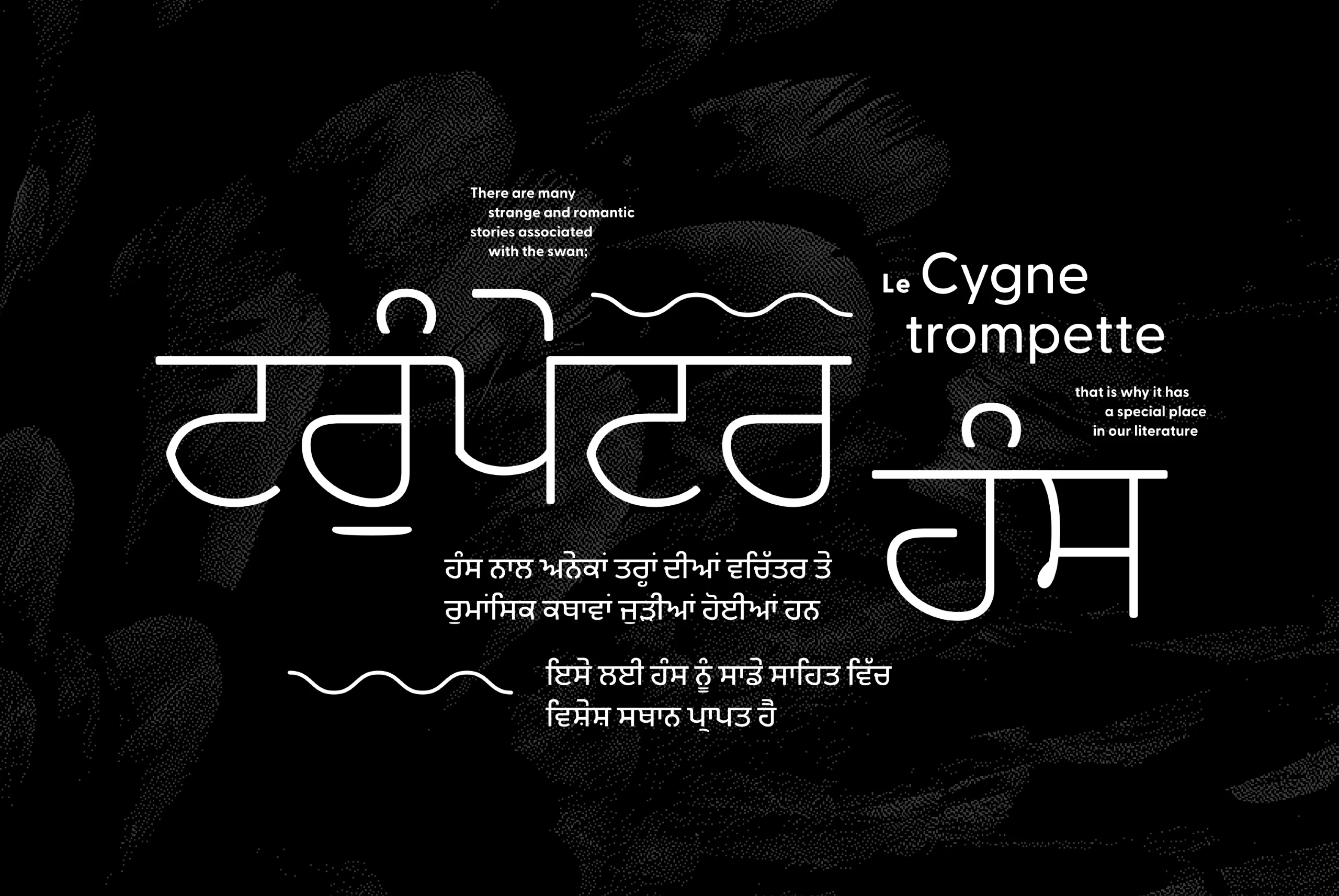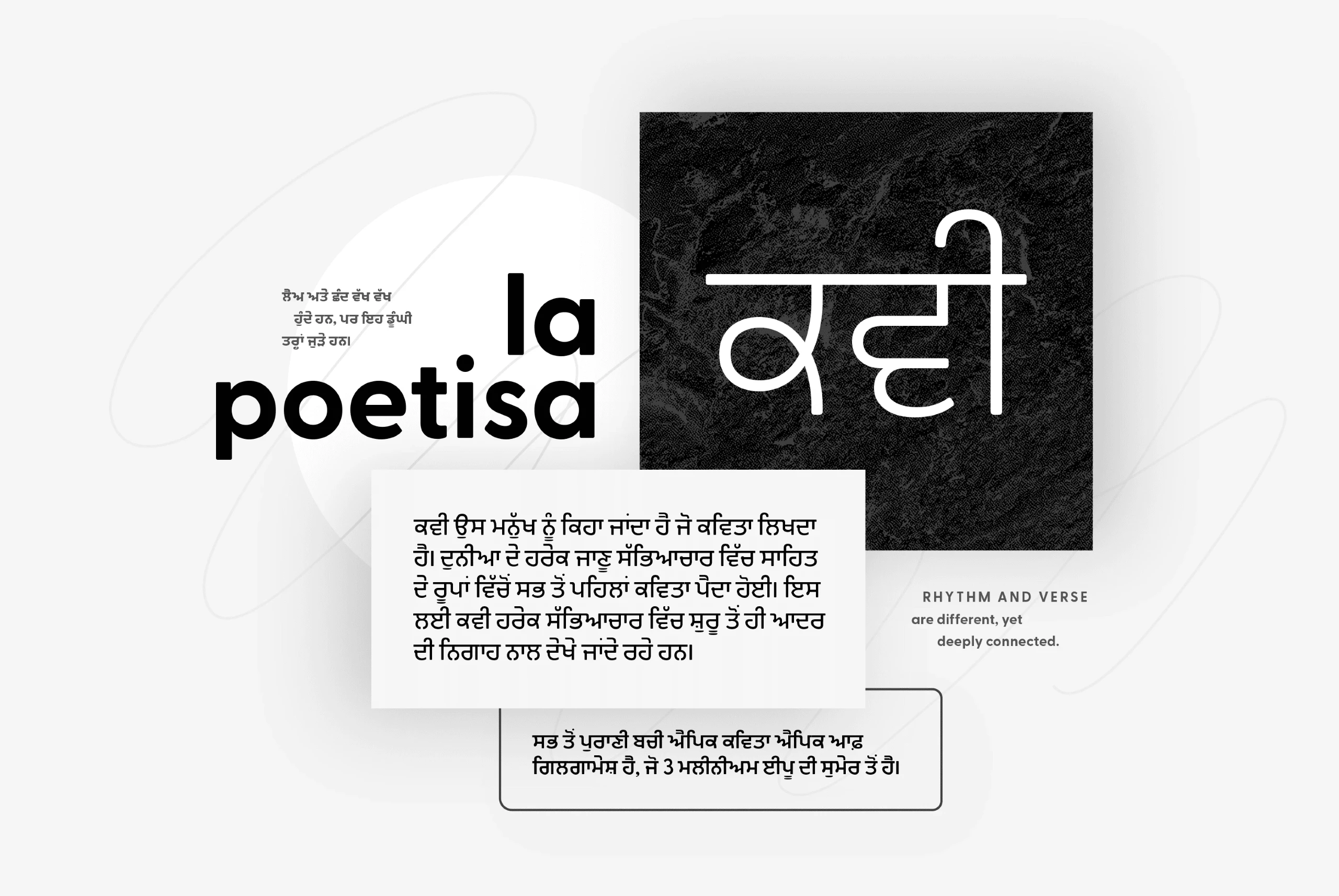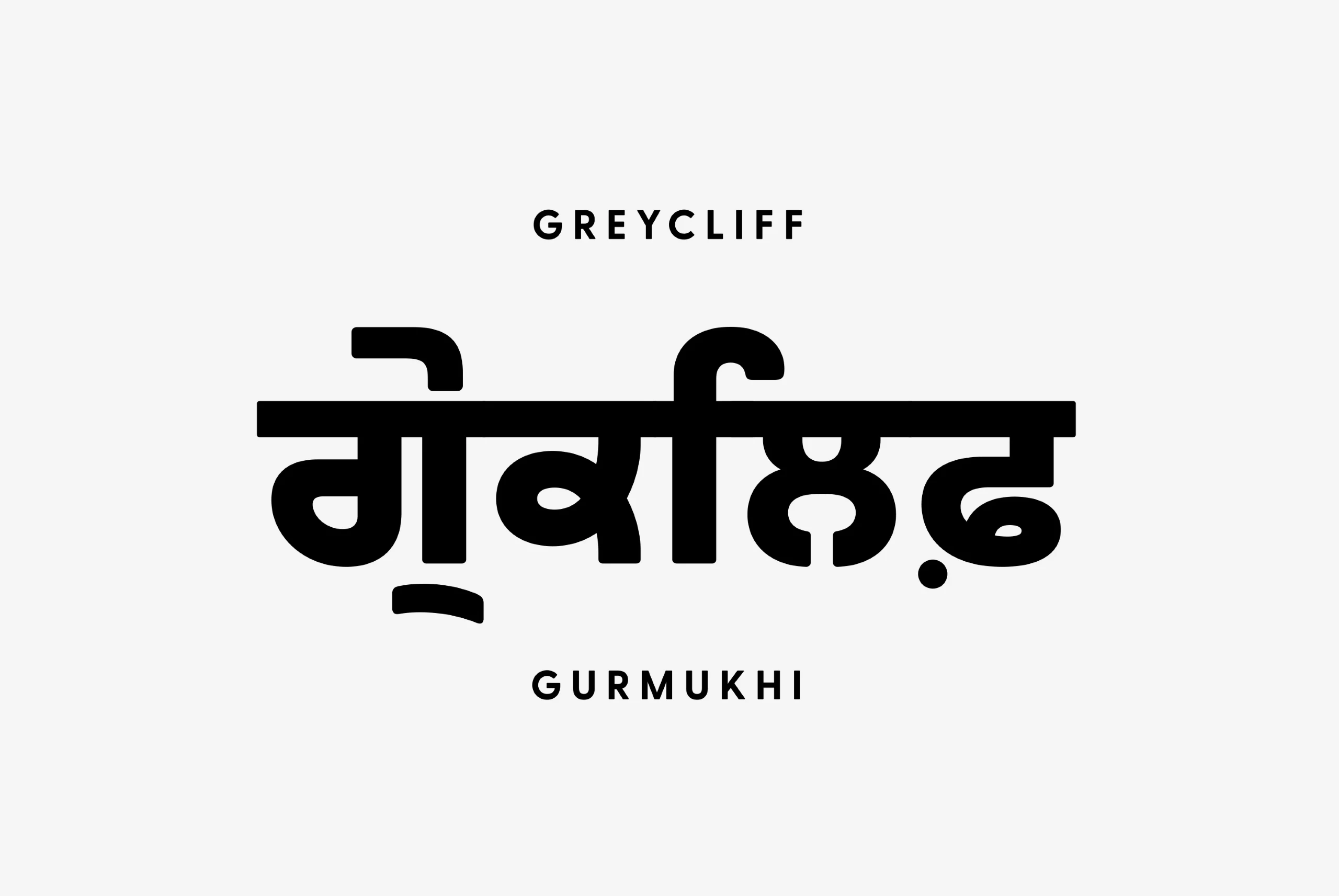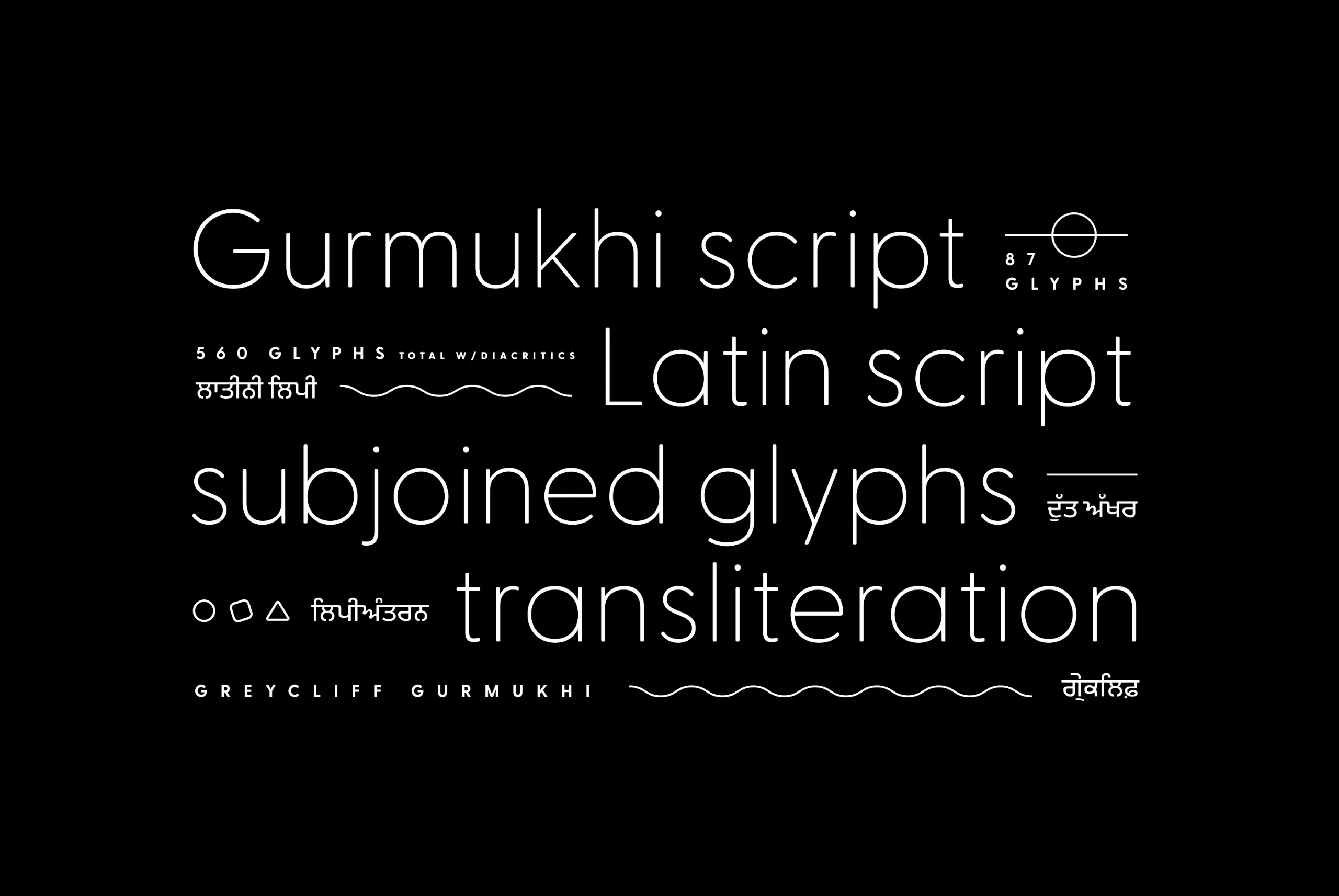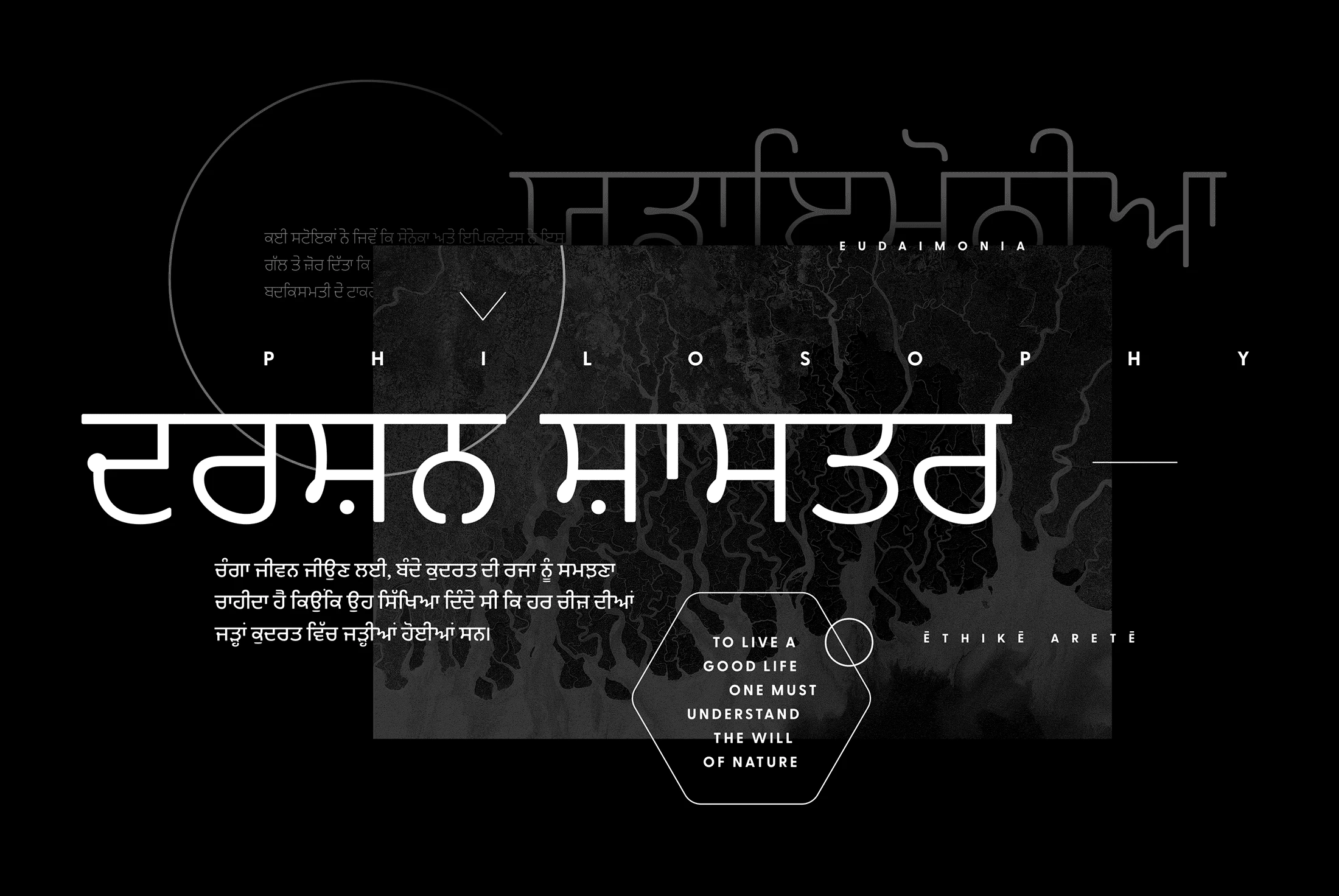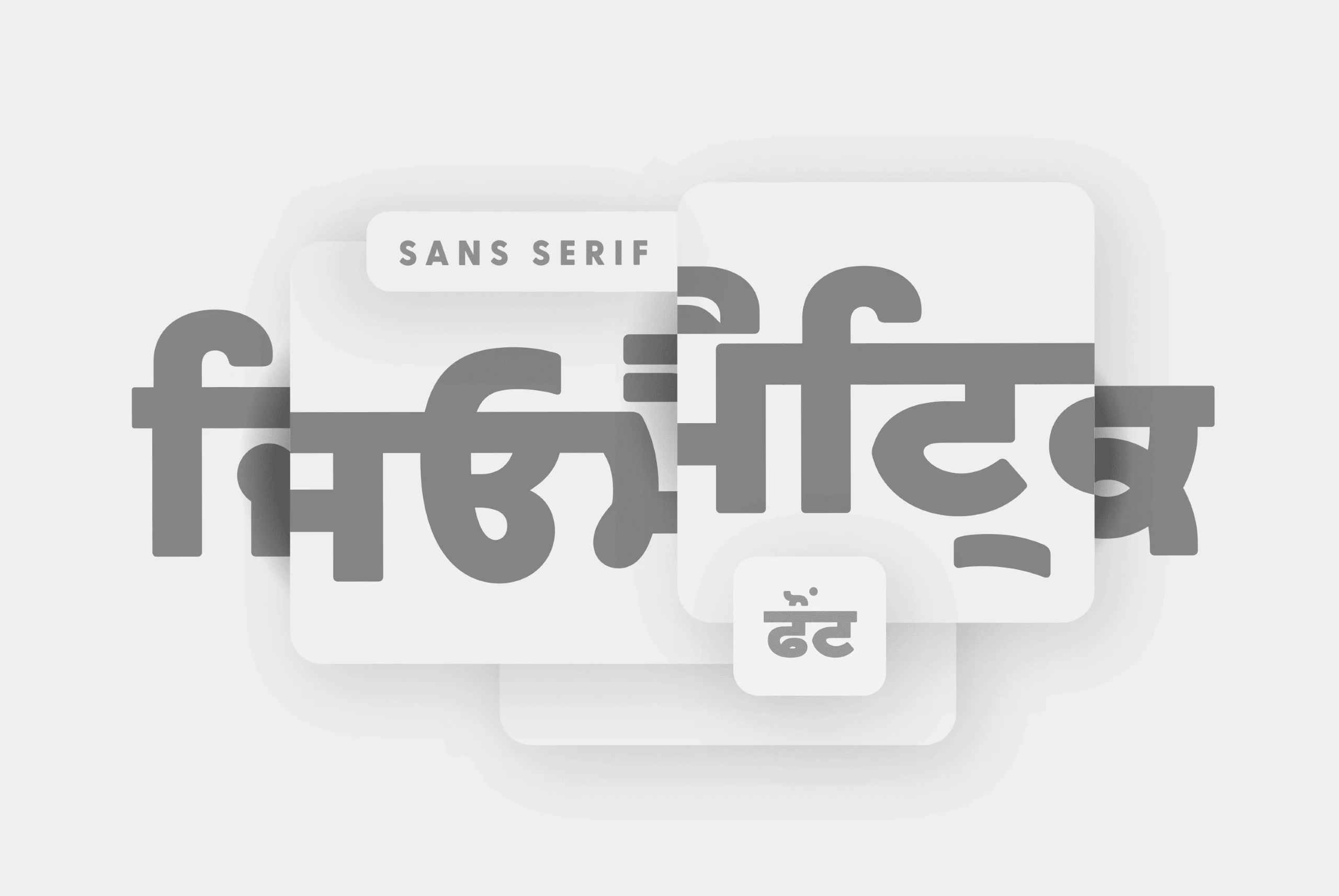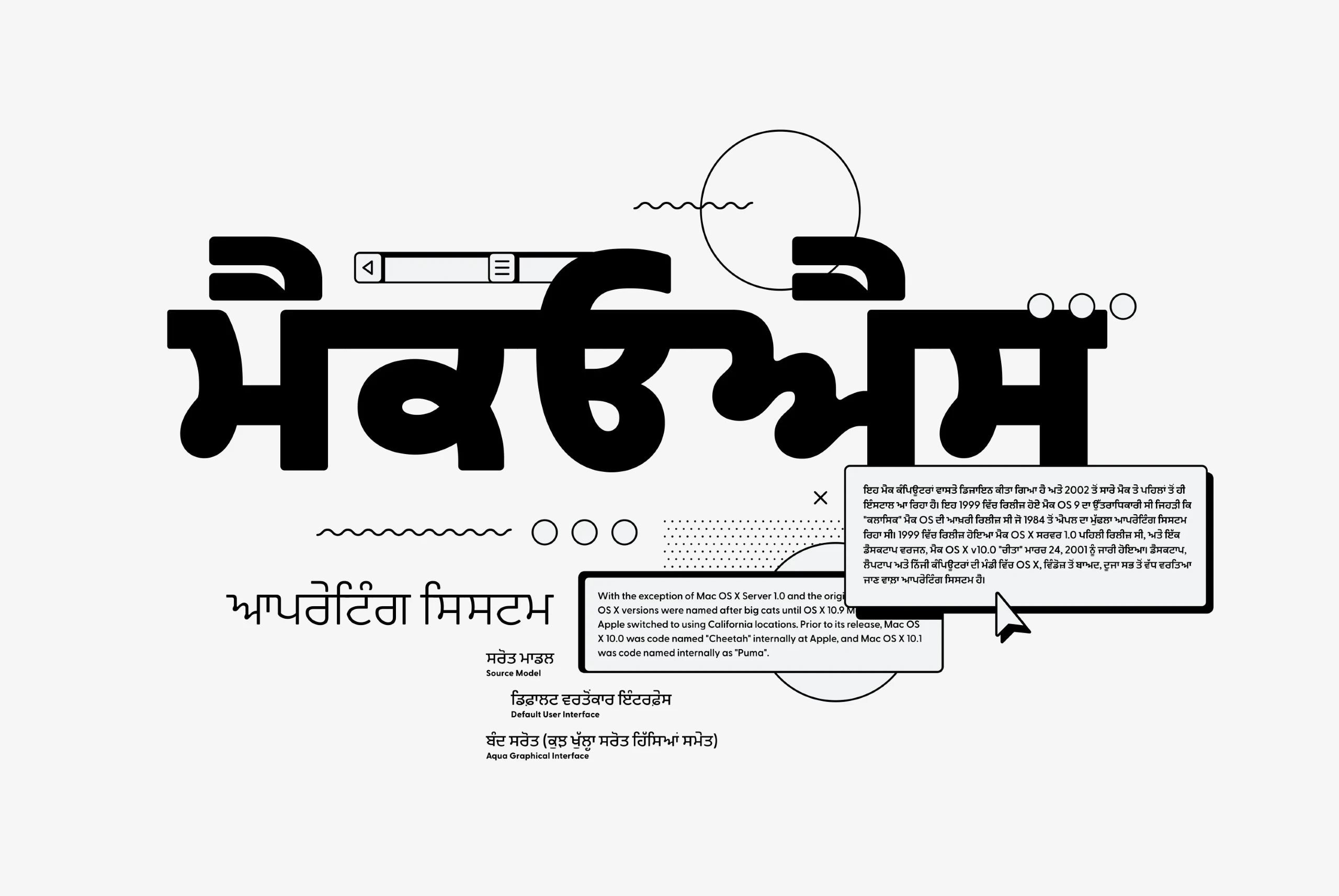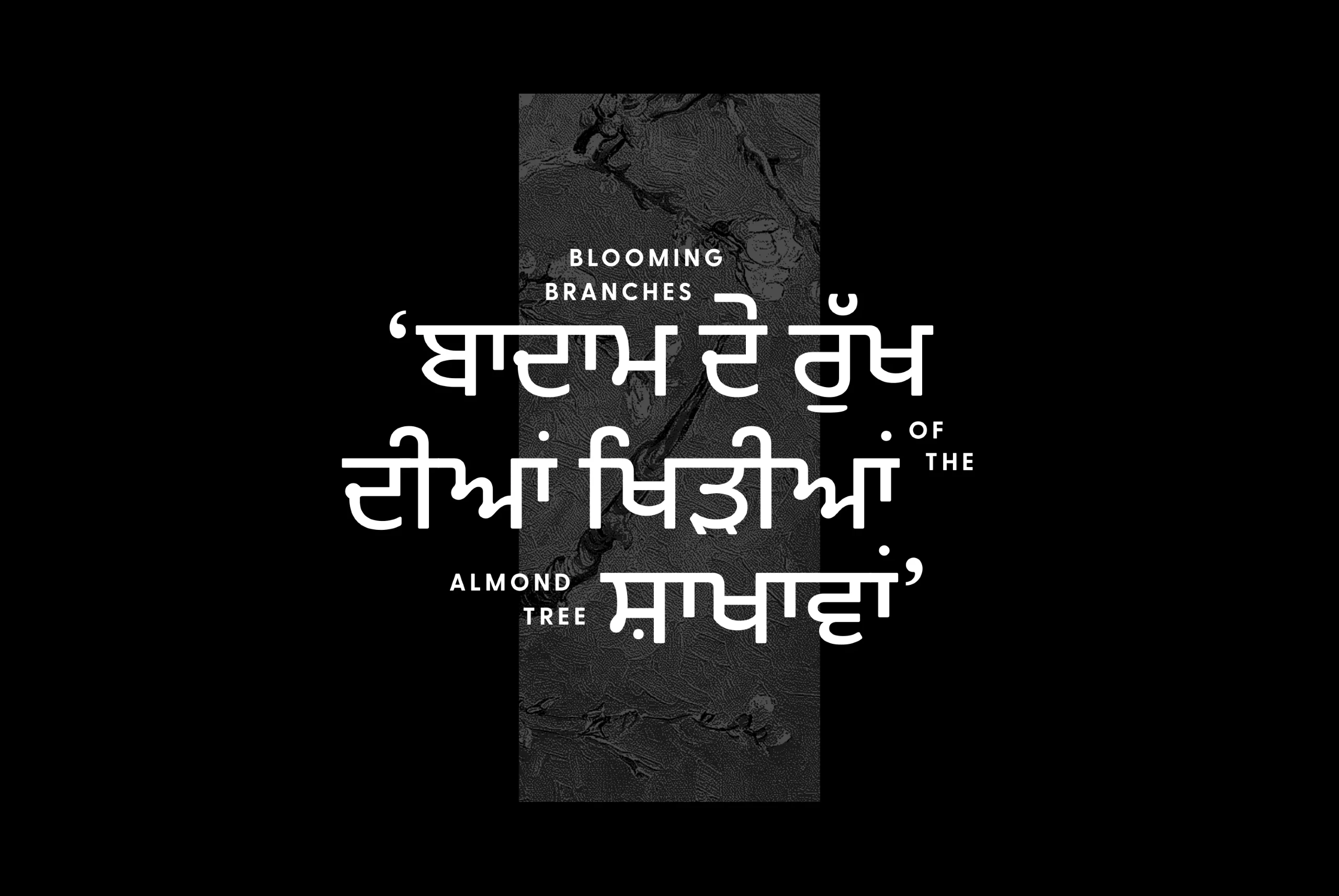
Greycliff Gurmukhi
Rugged, hearty, and warm, the Greycliff CF series is a versatile font family. Covering both Gurmukhi and Latin scripts, Greycliff Gurmukhi CF allows for visually cohesive multiple-script applications in a beautiful geometric sans serif font family. Diacritics and subscript letters are included for Panjabi language support and compatibility. The geometric, near-monoline construction lends a classic durability, tempered by softened edges and vibrant shapes.
nine Weights in Latin & Panjabi Script